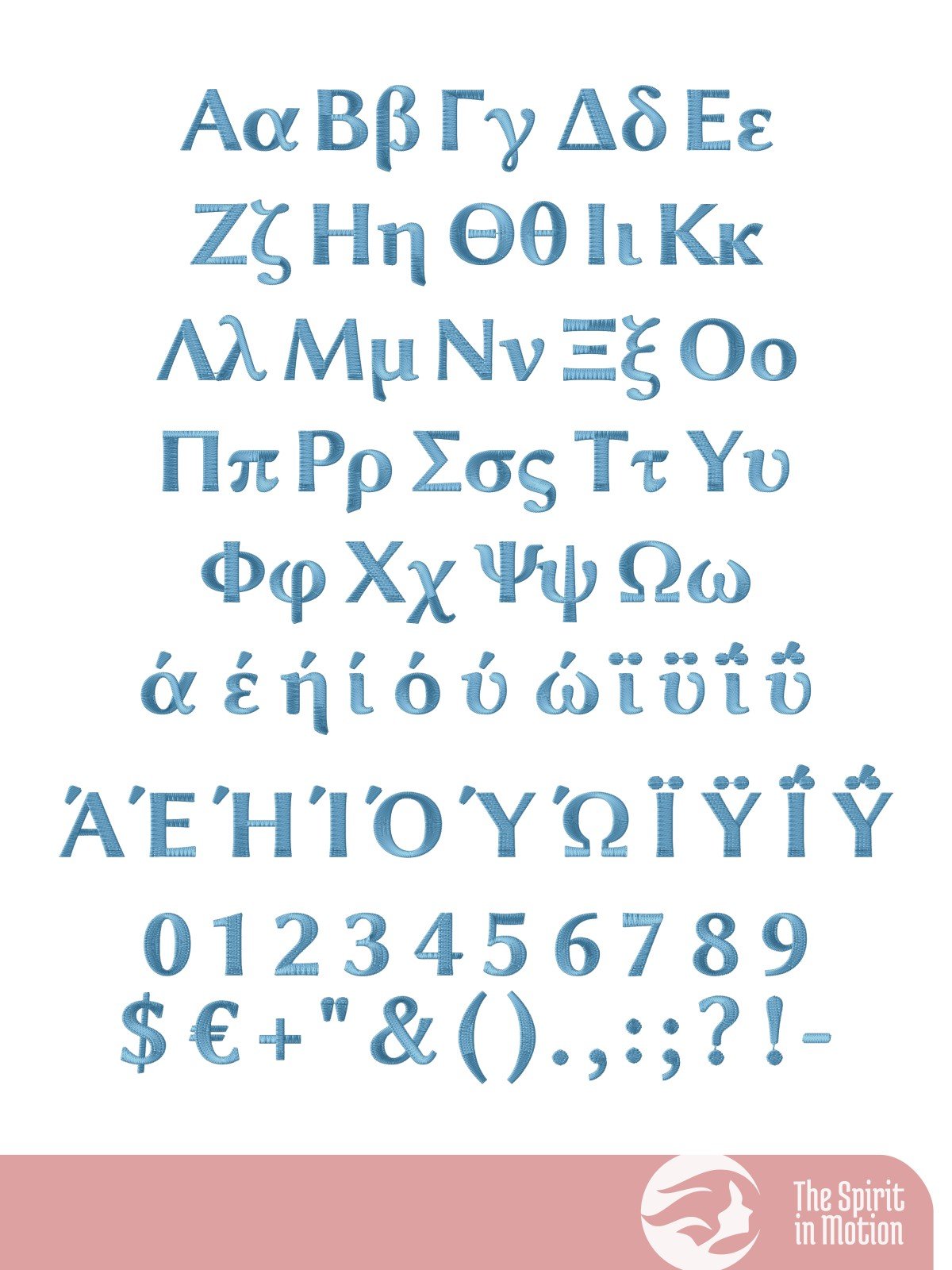
Greek Sans Regular Machine Embroidery Font | PES, BX, DST
Add a stylish and modern flair to your embroidery projects with this sleek Greek alphabet sans-serif font. Perfect for personalizing clothing, accessories, or home décor. The listed sizes refer to the approximate height of uppercase letters, though adjustments may be needed depending on your specific project and machine settings.